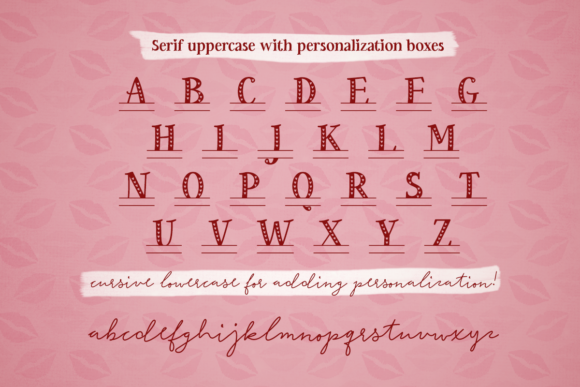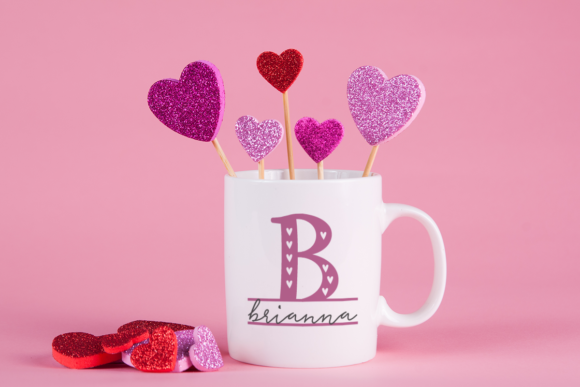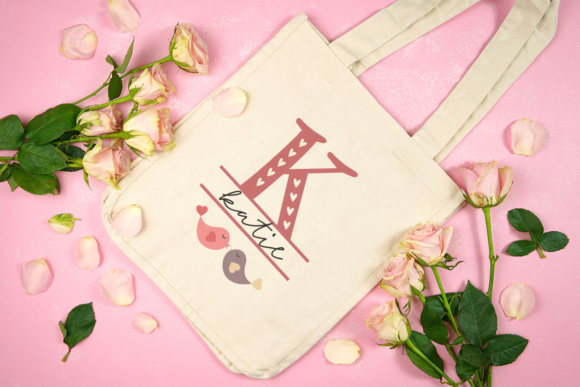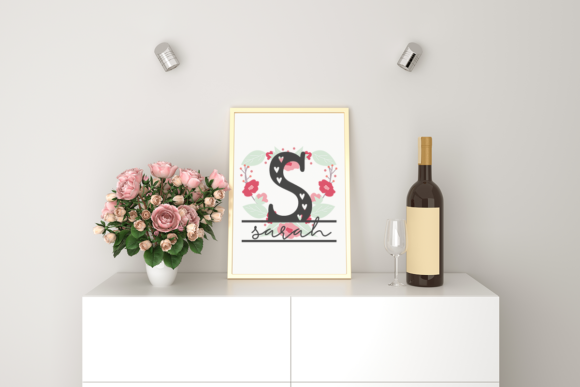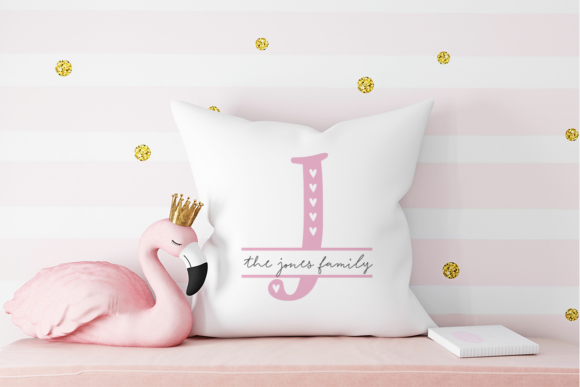
Creating Heartfelt Designs with Be My Monogram Font
You know that moment when a spark of creativity strikes, and you just can’t wait to bring your idea to life? For many designers, it’s the thrill of the creative process that keeps them going. For those who love Valentine’s Day, it’s the perfect excuse to get romantic and show some love. Whether it’s a special gift, a personalized keepsake, or a heartfelt message, Be My Monogram Font is the perfect tool to make your design stand out.
Be My Monogram Font is a beautiful, heart-filled Valentine’s Day duo styled font designed specifically for creating unique and personalized items. From mugs and tote bags to keychains and wall prints, this font is a great choice for anyone looking to add a touch of love and personality to their designs. As a designer, you’ll appreciate the versatility and charm of Be My Monogram Font, making it a valuable addition to your creative toolkit.
Be My Monogram Font Key Features
- Unique Characteristics: Features a customizable monogram design with interchangeable letters and symbols, making it ideal for personal branding and stationery.
- Font Style: Available in a modern, elegant design with subtle flair, making it perfect for creative and professional projects.
Designer Review: Be My Monogram Font
I recently had the chance to work with “Be My Monogram Font” and overall, I have mixed feelings about it. Let’s break it down.
- Unique aesthetic: Be My Monogram Font has a distinctive and eye-catching style that sets it apart from more traditional fonts.
- Customization options: The font offers a range of customization options, including color and size, which can be useful for branding and marketing materials.
- Monogram functionality: The font’s monogram feature is a nice touch, allowing users to create custom monograms with ease.
- Limited character set: Be My Monogram Font has a limited character set, which may not be suitable for long-form text or documents.
- Not ideal for body text: The font’s unique style can make it difficult to read in large quantities, making it better suited for headlines and titles.
- May not be compatible with all devices: I experienced some issues with the font displaying correctly on certain devices and browsers.
Overall, Be My Monogram Font is a great choice for branding and marketing materials, but it may not be the best option for body text or long-form content. With some limitations and potential compatibility issues, it’s essential to weigh the pros and cons before deciding to use this font.
Tips for Getting the Most Out of Be My Monogram Font
Use Be My Monogram Font for creating elegant and sophisticated designs, such as:
– Wedding invitations
– Business cards
– Personalized stationery
Experiment with different font sizes and styles to create a unique look.
Be My Monogram Font is ideal for:
– Creating monograms for personal or business use
– Adding a touch of elegance to designs
– Making a statement with custom typography